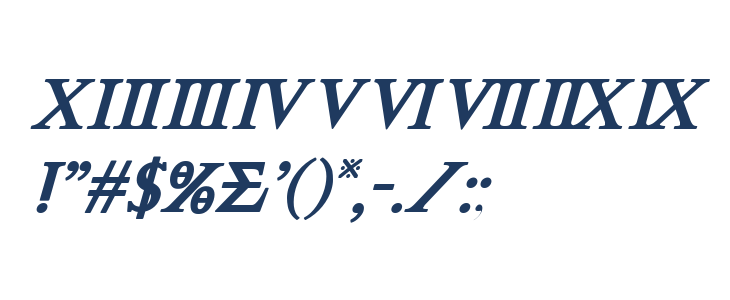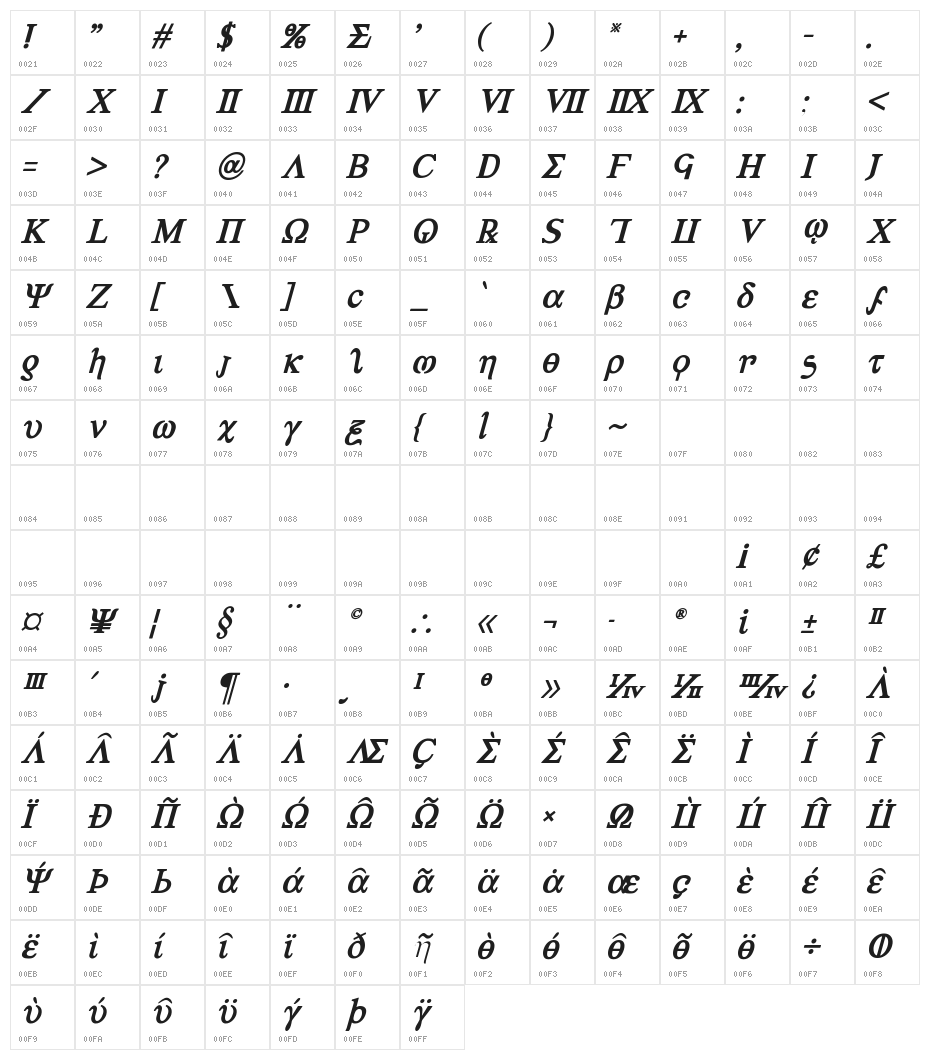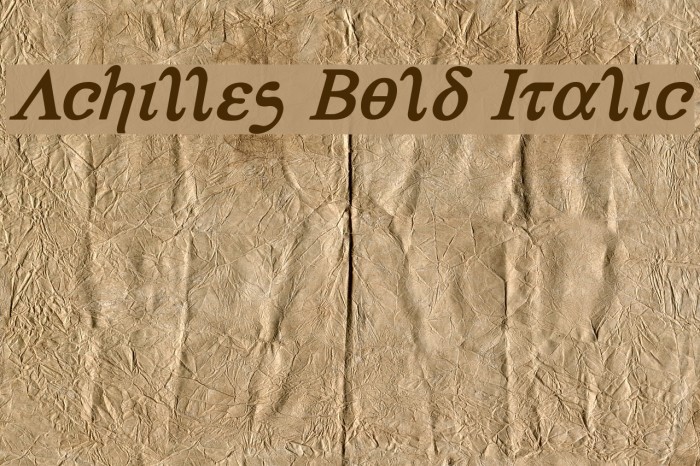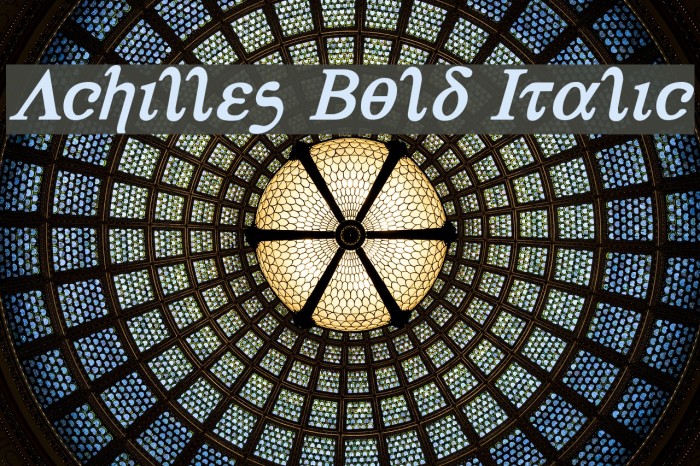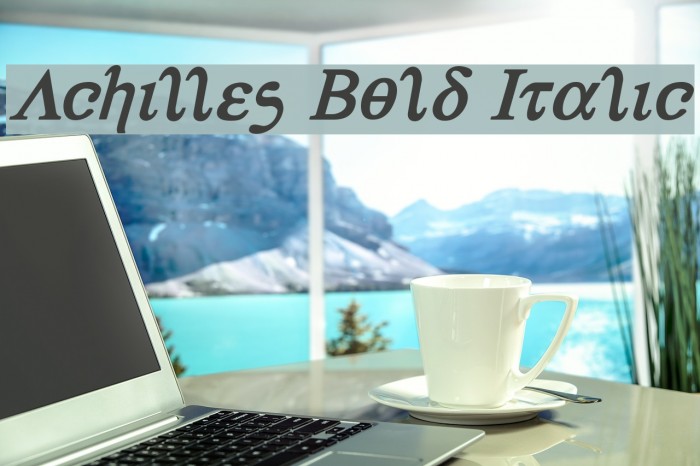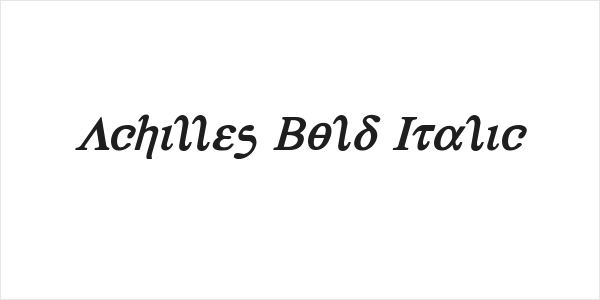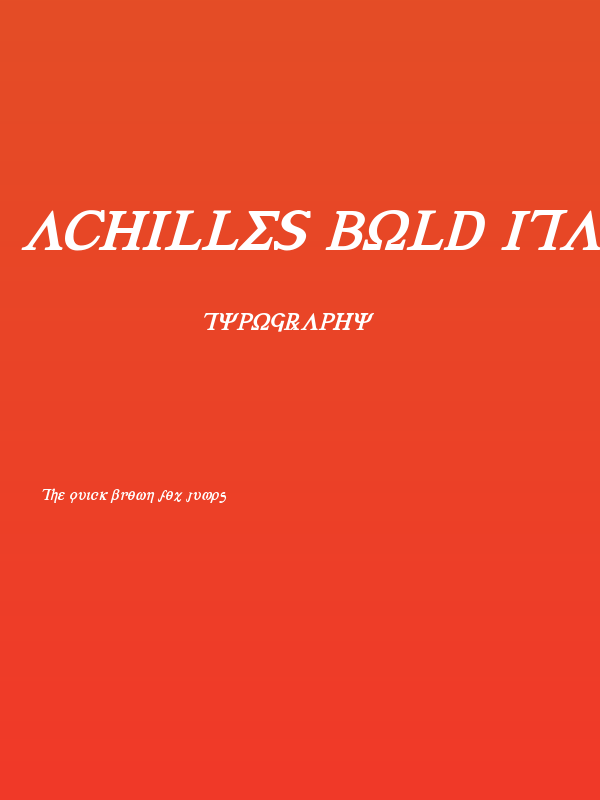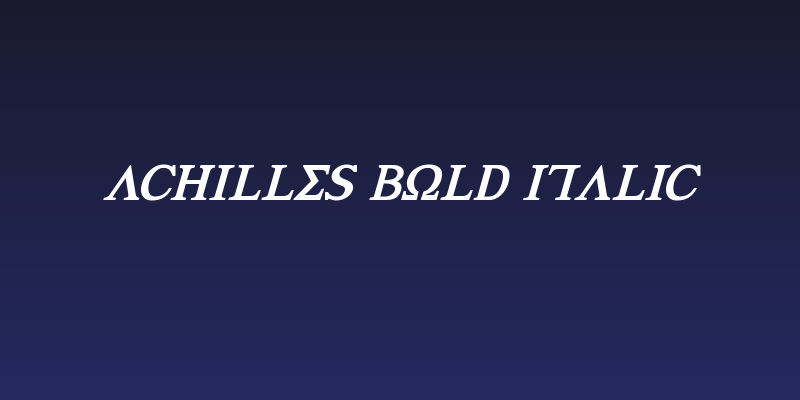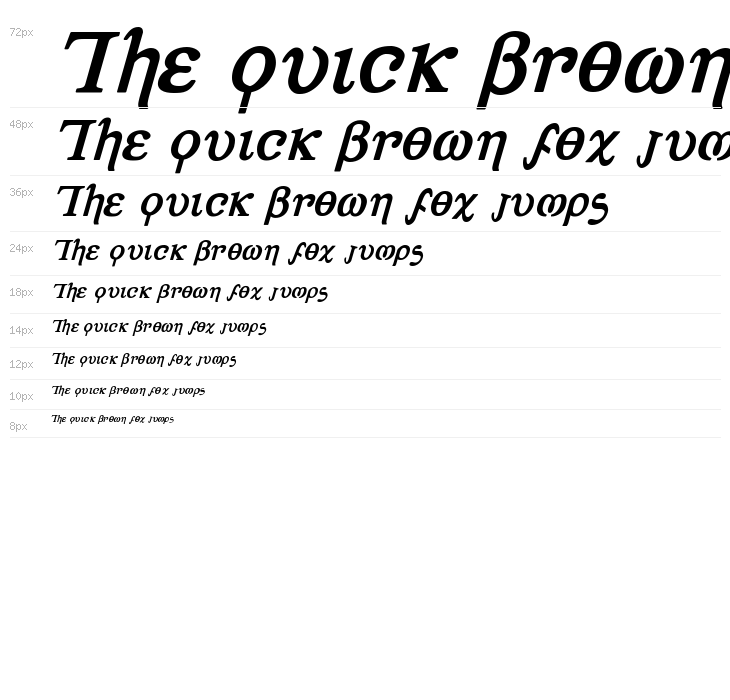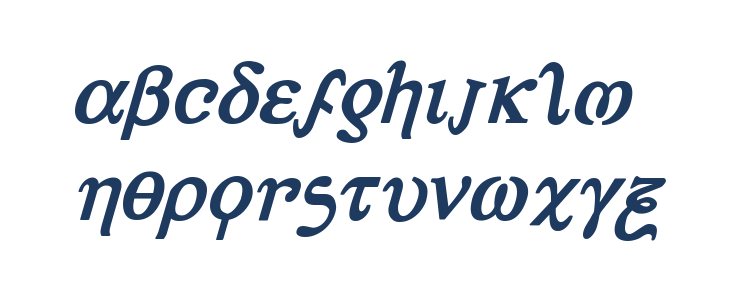
Achilles Bold Italic Font
Achilles Bold Italic Description
This font features a bold and italicized style with a strong presence. The characters are designed with a distinct slant, giving them a dynamic and forward-moving appearance. The strokes are thick, providing a robust and confident look, while the italicization adds elegance and fluidity. The uppercase letters are prominent and commanding, while the lowercase letters maintain a consistent flow. The numerals and special characters are crafted to match the overall bold and italicized theme, ensuring uniformity across all glyphs. This font is well-suited for making impactful statements and capturing attention.